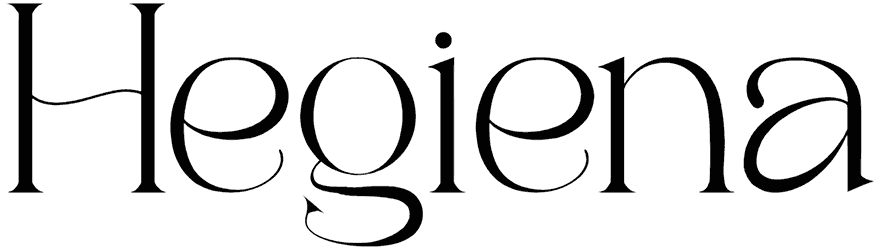
Hegiena Font
Before you create from scratch and pay your energy as well as your time to reinvent the wheel, take a moment to visit this serif font; we guarantee you’d reconsider! So, here’s how it would stick out.